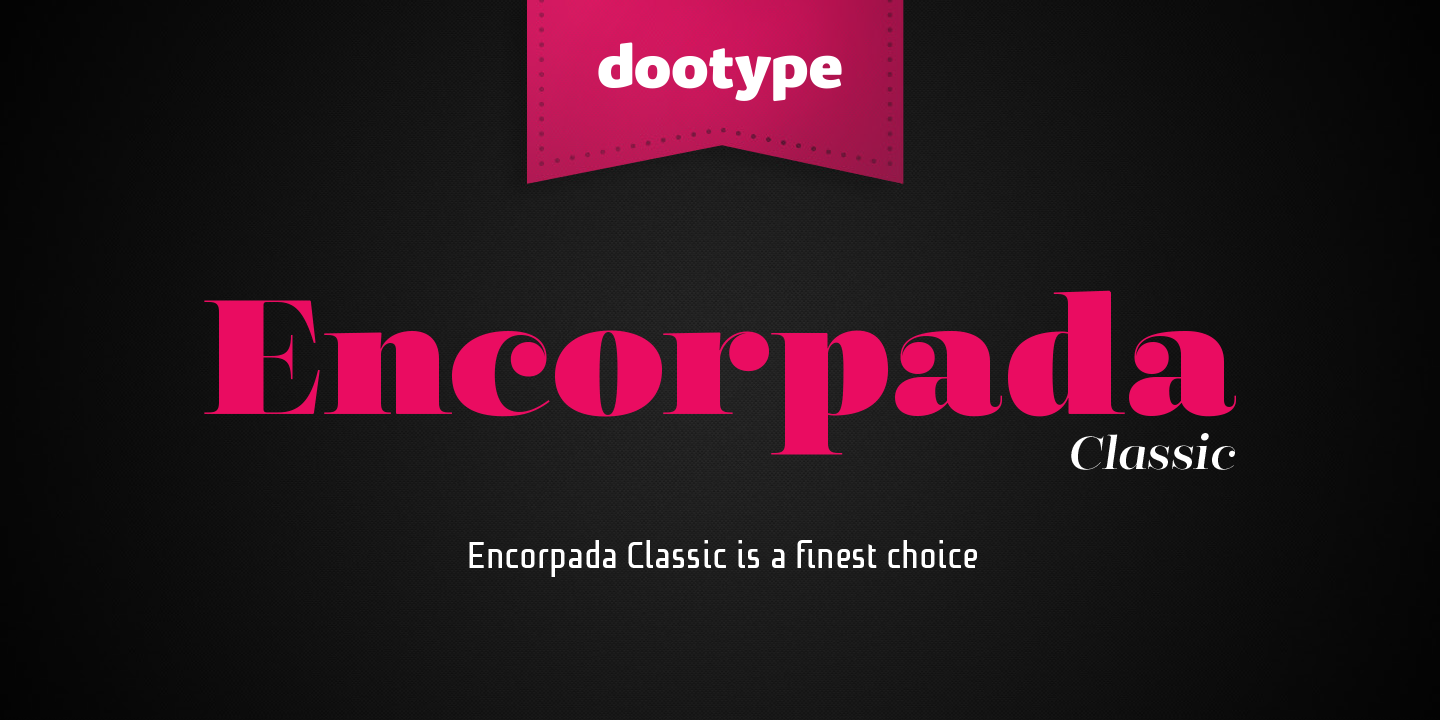
Encorpada Classic Font is ideal for traditional corporate identities, established business communications, classic academic publications, prestigious institutional materials, formal diplomatic documents, heritage brand revivals, distinguished professional services, time-honored legal practices, conservative financial institutions, and authoritative government communications. This distinguished typeface excels in applications where institutional authority and classical elegance need to be communicated with timeless sophistication and established credibility that embodies the essence of traditional corporate excellence and the enduring values found in classical business traditions and institutional heritage.
What makes Encorpada Classic Font exciting is its remarkable ability to project institutional gravitas and classical business sophistication through its traditionally structured letterforms that embody the kind of established authority and proven reliability that defines successful long-term institutions and respected corporate entities. The font captures the essence of corporate tradition with its dignified construction and classically proportioned characters that suggest the steady leadership and systematic excellence that characterize enduring business success. Its carefully balanced character details and institutional personality create an atmosphere of established confidence that resonates with corporations, institutions, and professional organizations who understand the value of projecting stability, tradition, and proven competence in competitive business environments.
The Encorpada Classic Font family typically includes Light, Regular, Medium, and Bold weights, each maintaining the signature classical characteristics and institutional authority. Some versions offer corresponding Italic styles that preserve the traditional dignity while adding formal emphasis, extended character sets for international corporate applications, and specialized variants optimized for formal documentation and institutional communications. The family may also include Small Caps for hierarchical text organization and display cuts designed for maximum authoritative impact in corporate and institutional presentations requiring established credibility.
Whether you're creating traditional corporate brands, institutional communications, or classical business materials, Encorpada Classic Font Free Download delivers the perfect institutional authority your established-focused projects deserve. Its classical character and corporate styling make it an invaluable asset for established corporations, prestigious institutions, and traditional professional services working in corporate heritage, institutional leadership, and classical business sectors where authentic institutional credibility and time-tested reliability are essential for maintaining trust and establishing leadership in conservative business markets and traditional professional environments.